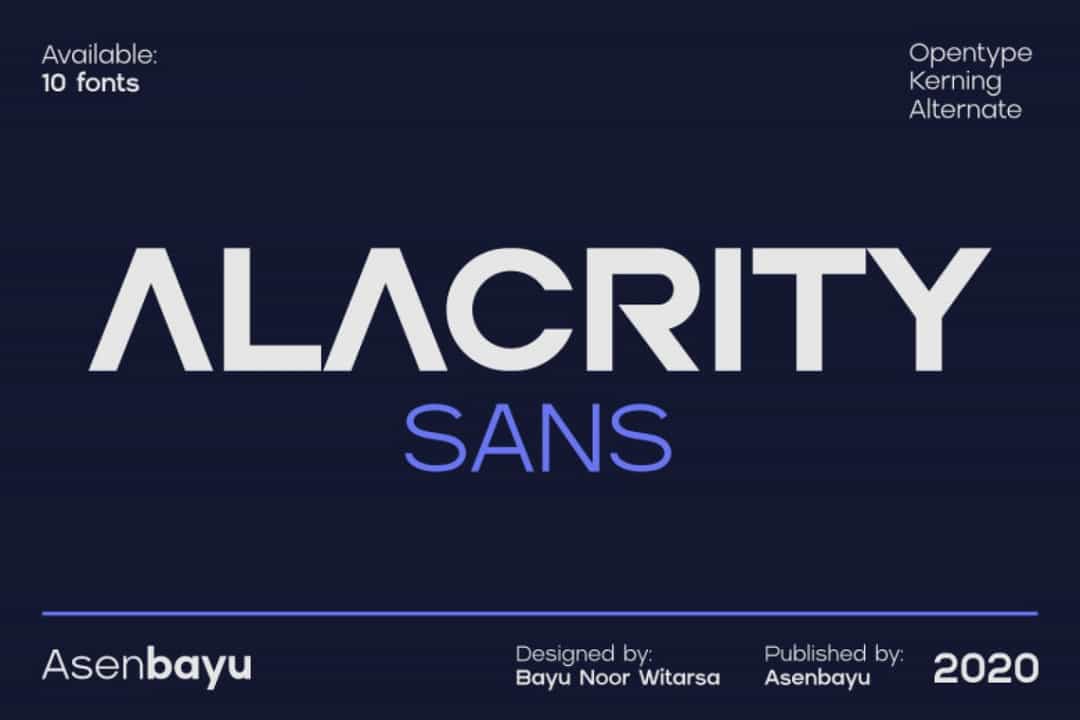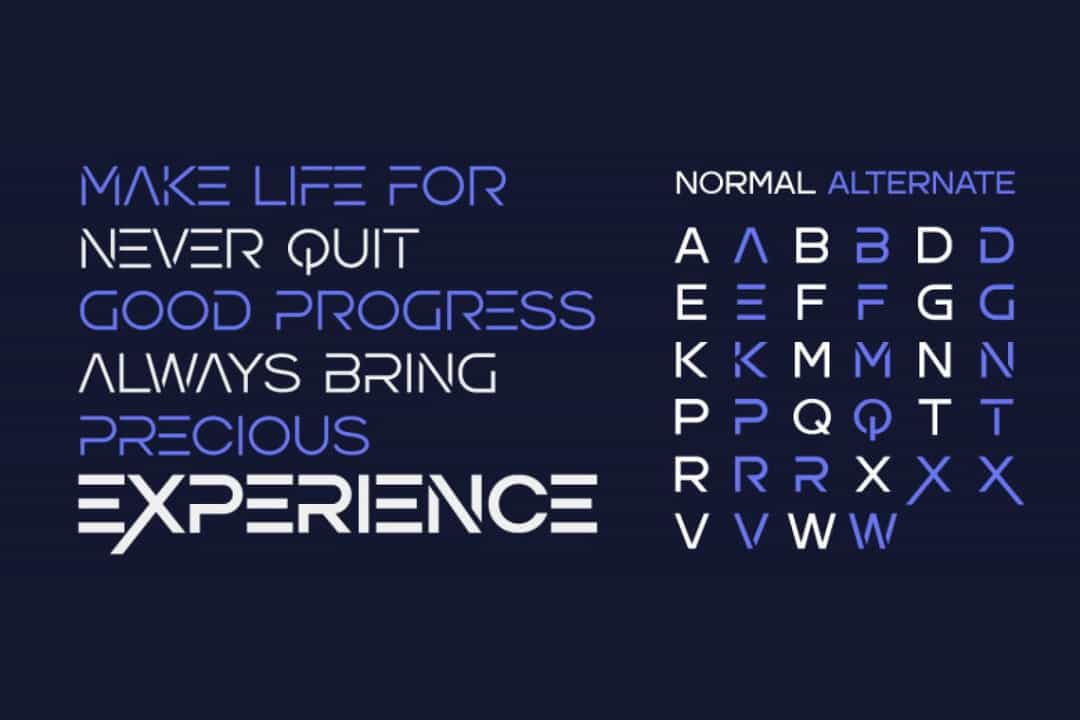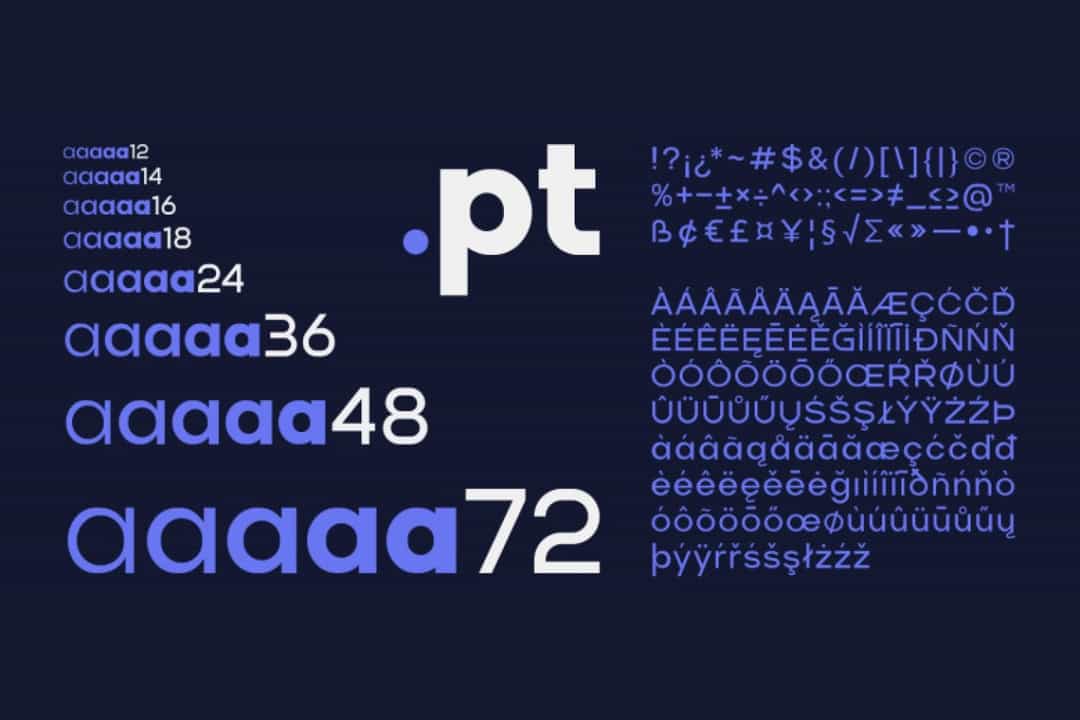
Alacrity Sans is an innovative font family with multipurpose use that features sophisticated geometric forms. Perfect for contemporary, clear and professional styles alike – great for logos, branding journals, business cards, journal stationary web displays, sport product technology applications, web displays etc – Alacrity Sans features cutting-edge typeface technology to give it that extra edge! Experience its excitement now!